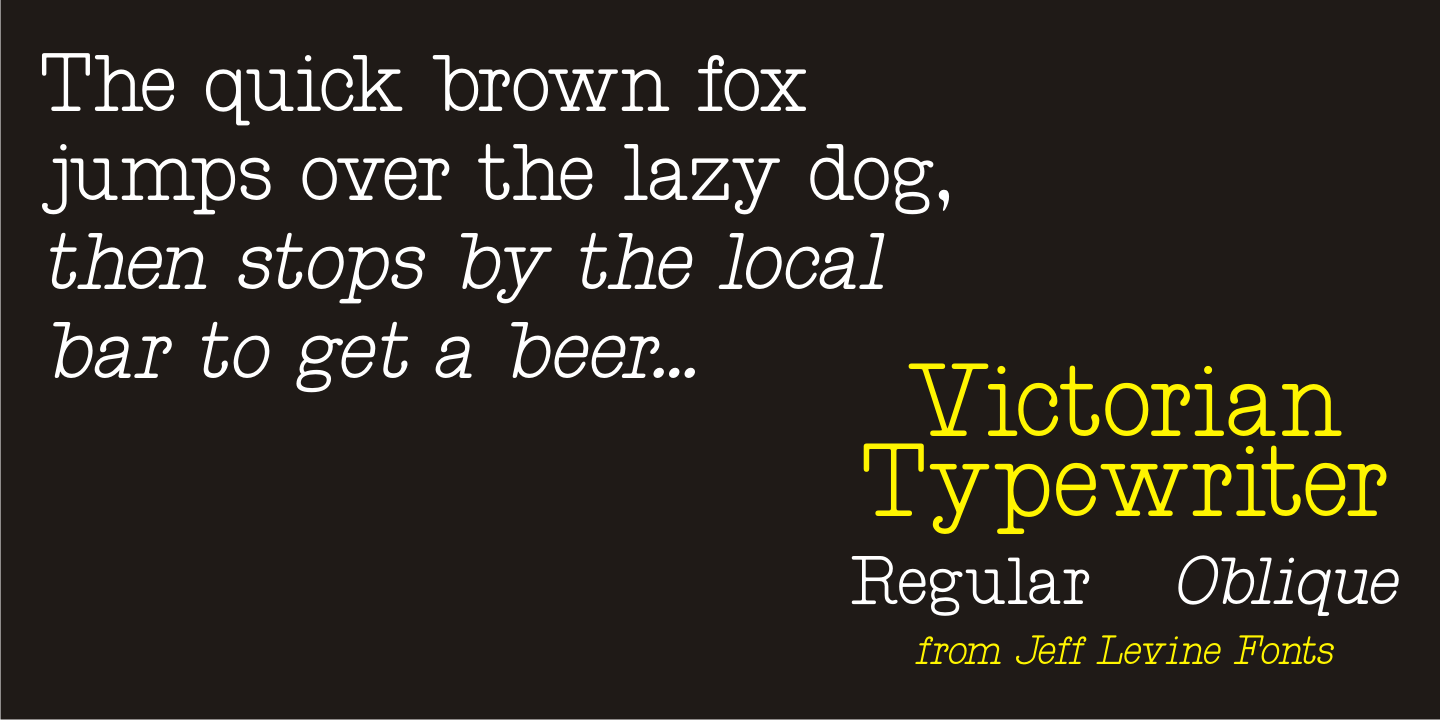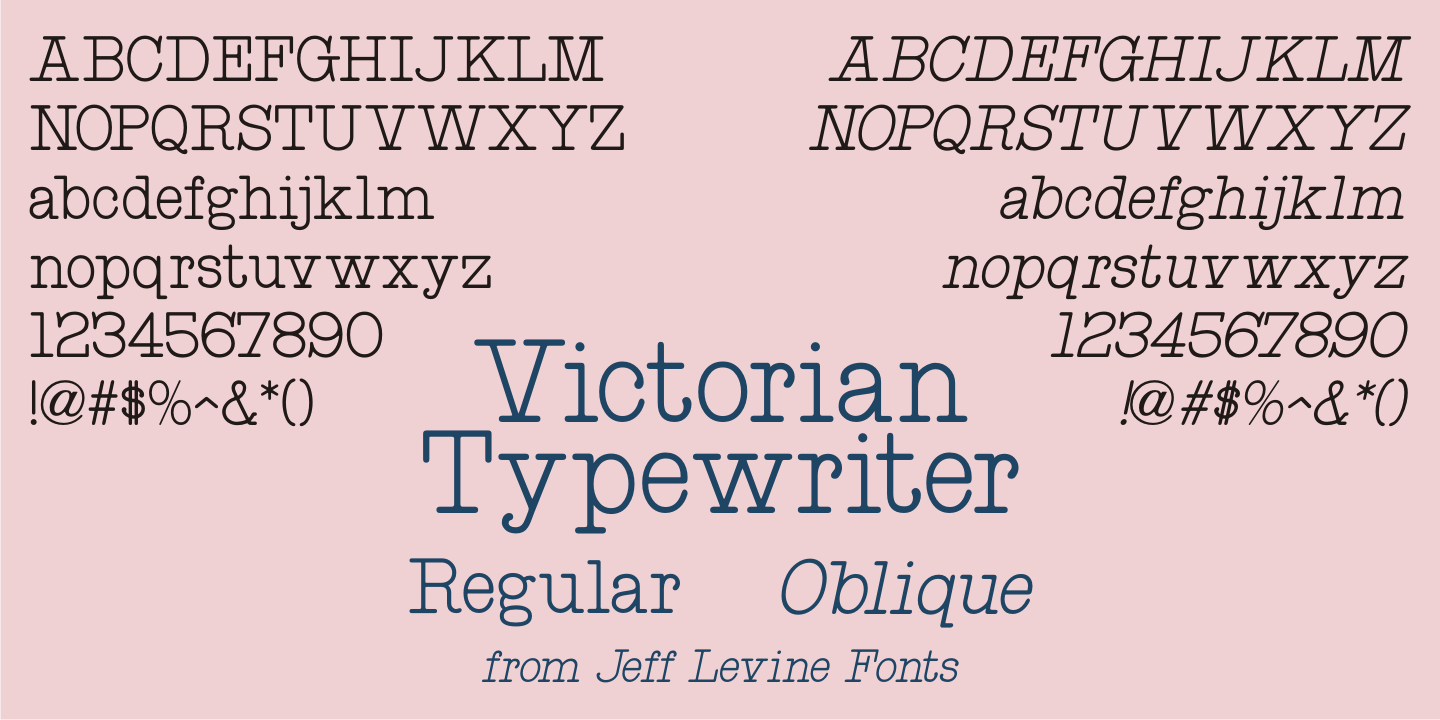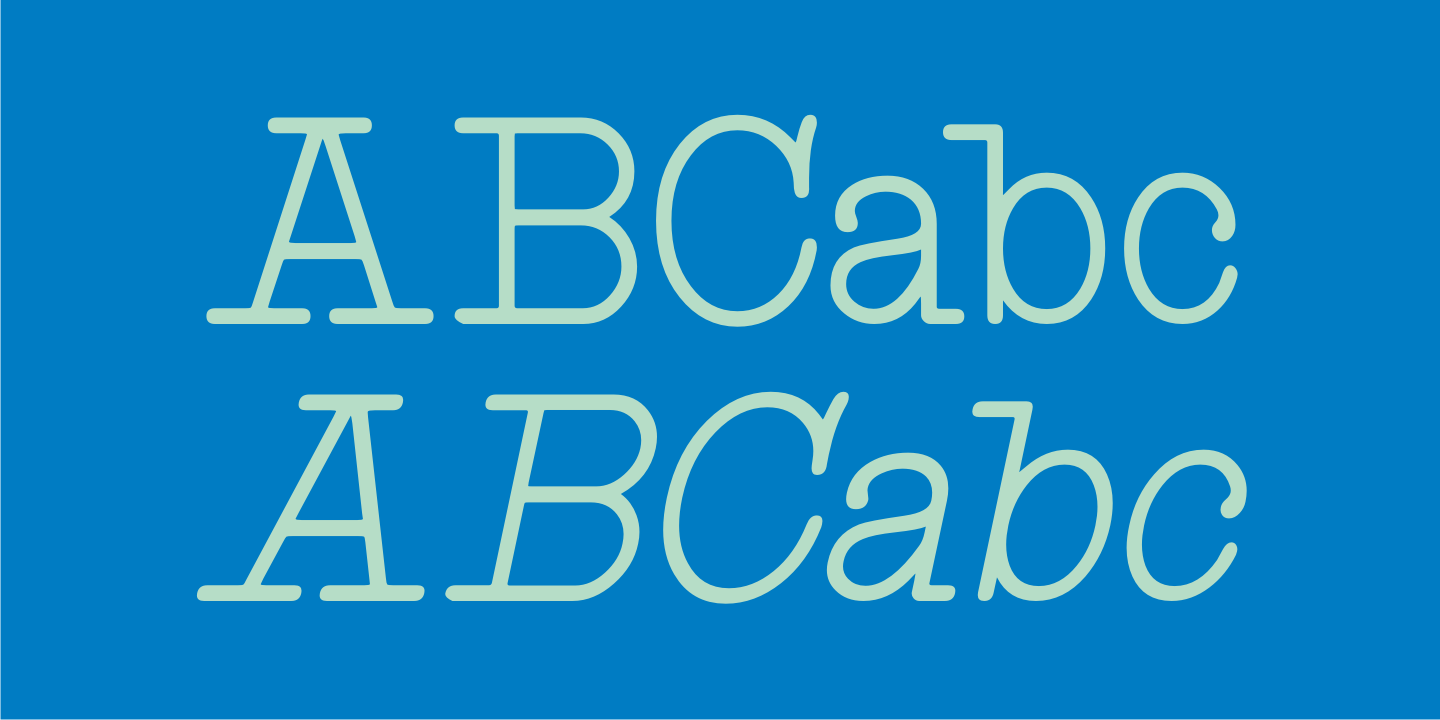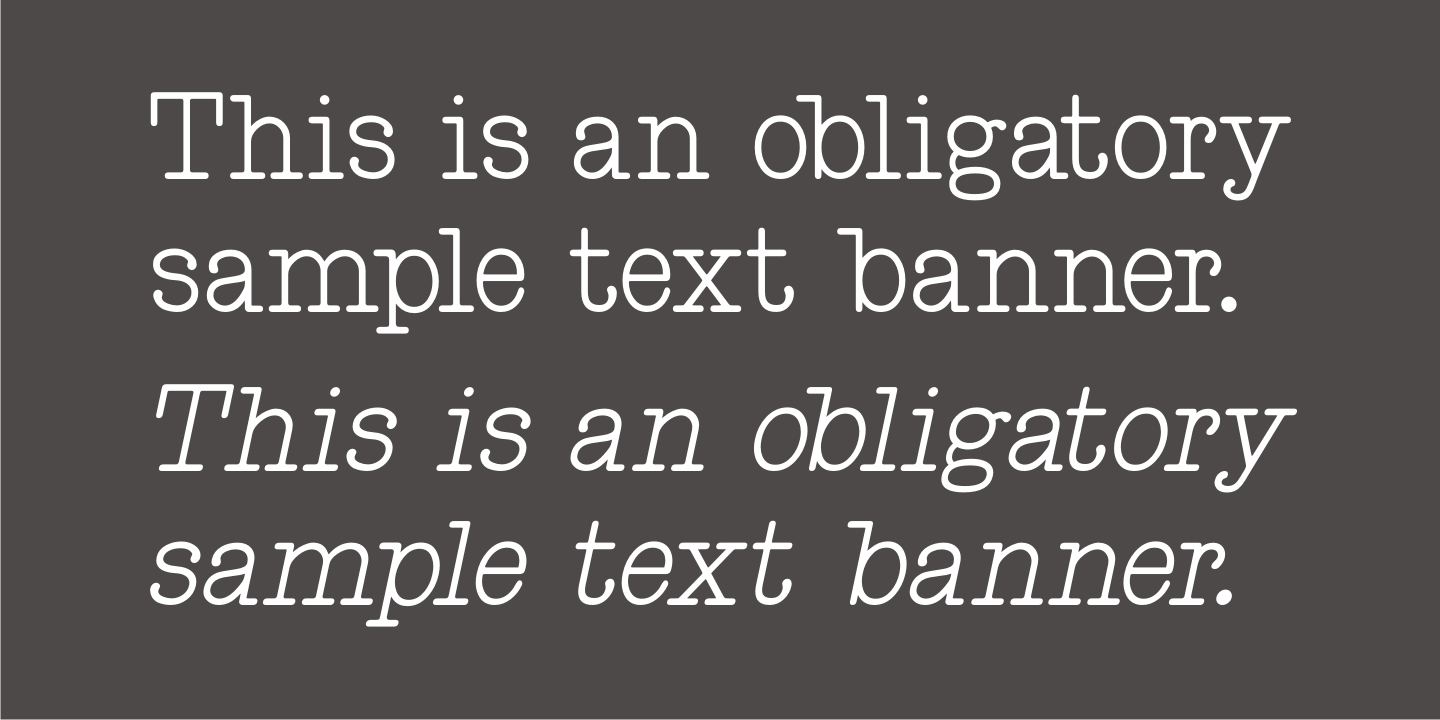
Victorian Typewriter
The titles in various sections of an 1890 catalog for stencil manufacturing supplies were set in metal type that closely resembled the lettering found on a typewriter.
These examples became the basis for Victorian Typewriter JNL, which is available in both regular and oblique versions.